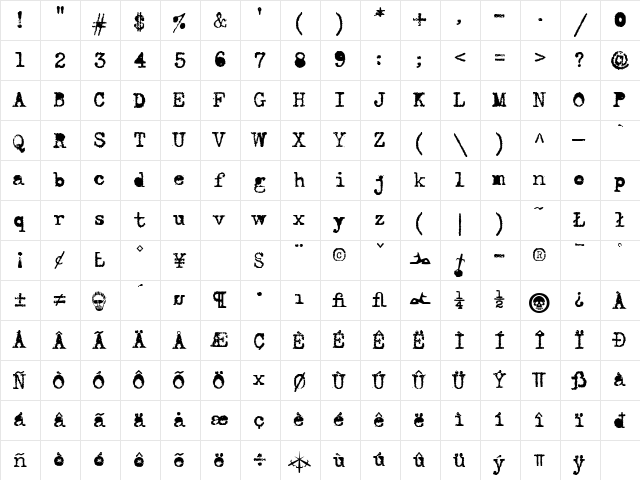
Telepath Loaded Regular Free Font
Telepath Loaded Regular
Design Context for Telepath Loaded
Telepath Loaded is a composed and adaptable typeface that performs quietly and consistently across a wide range of design contexts.